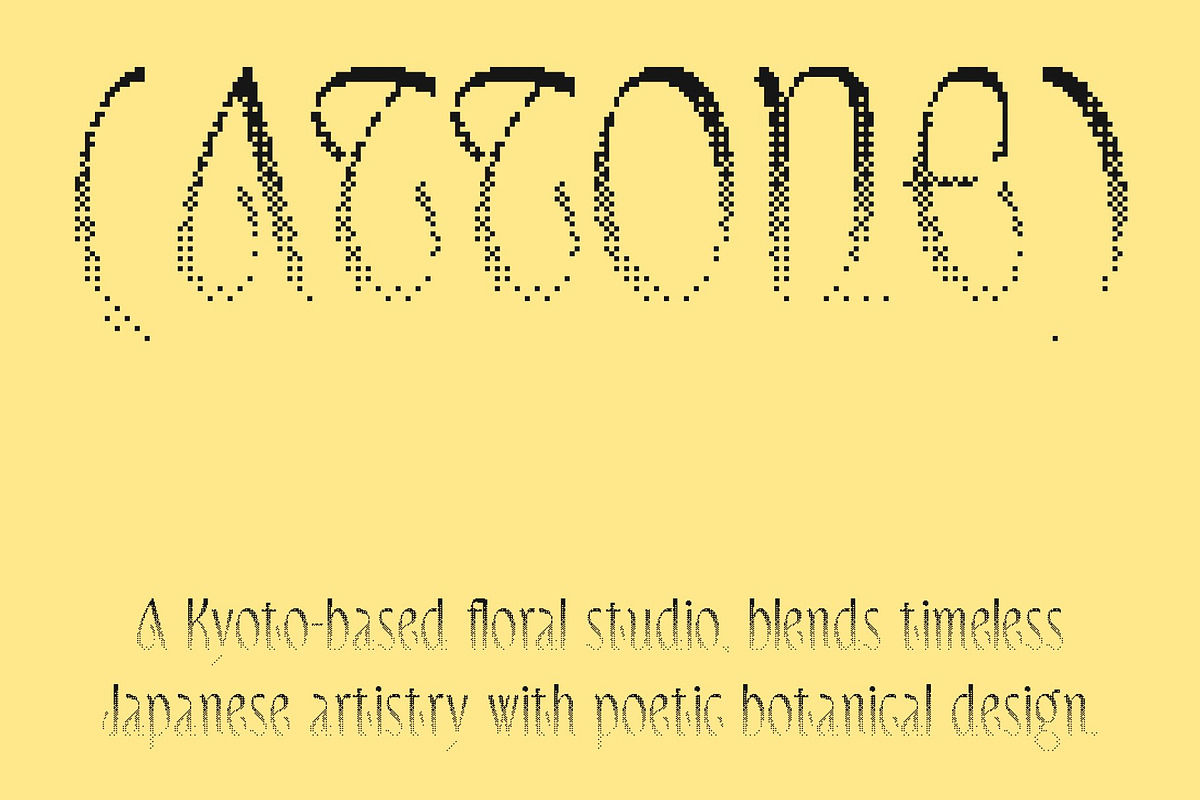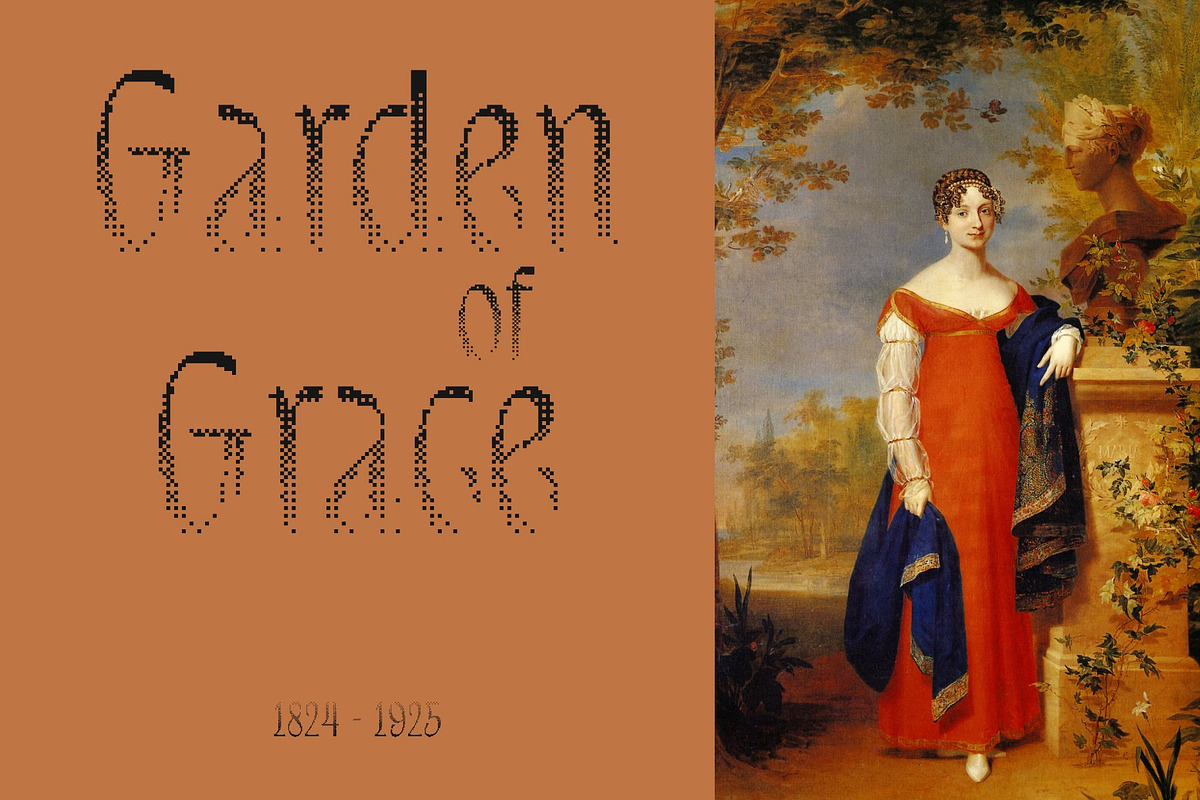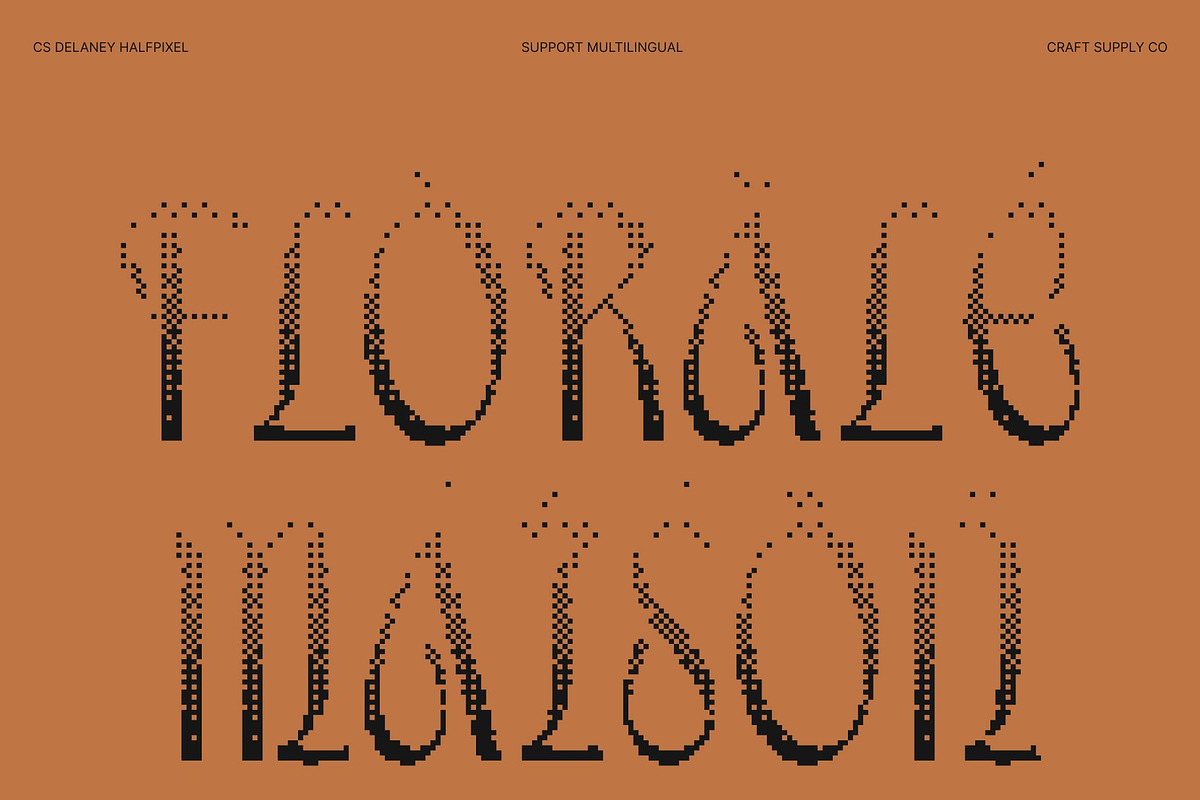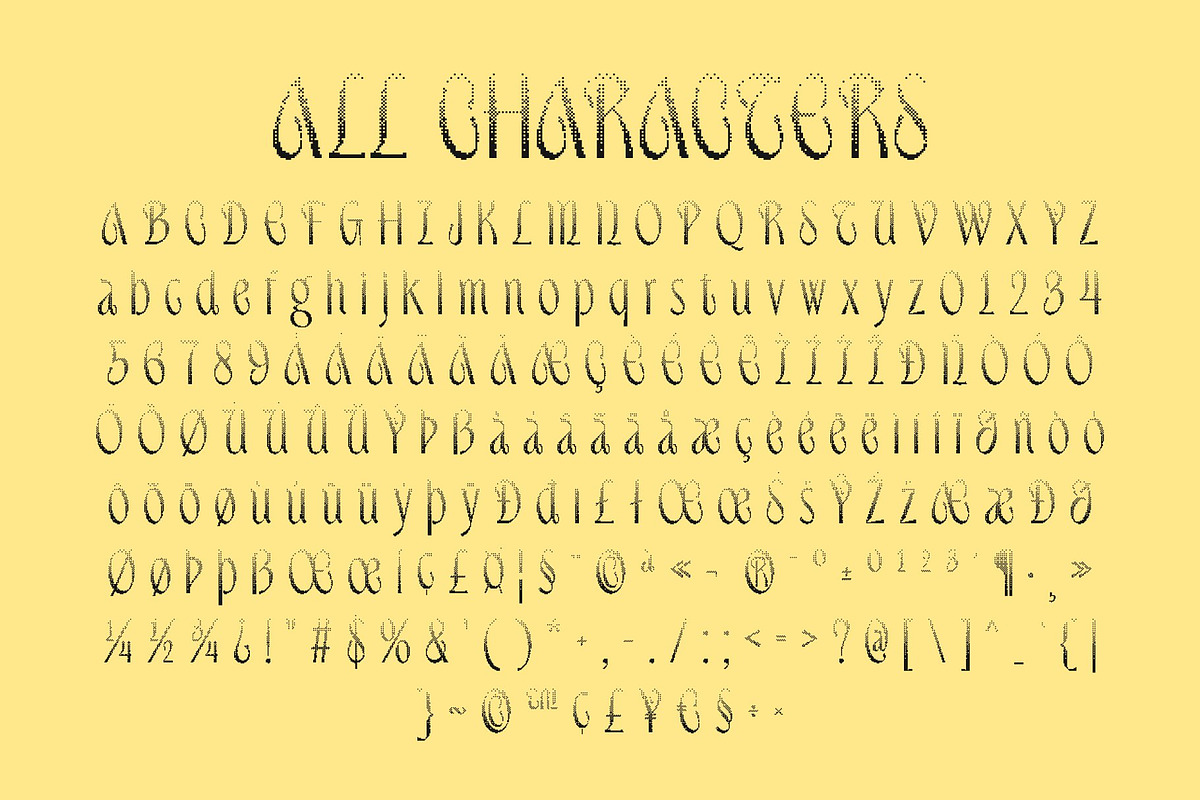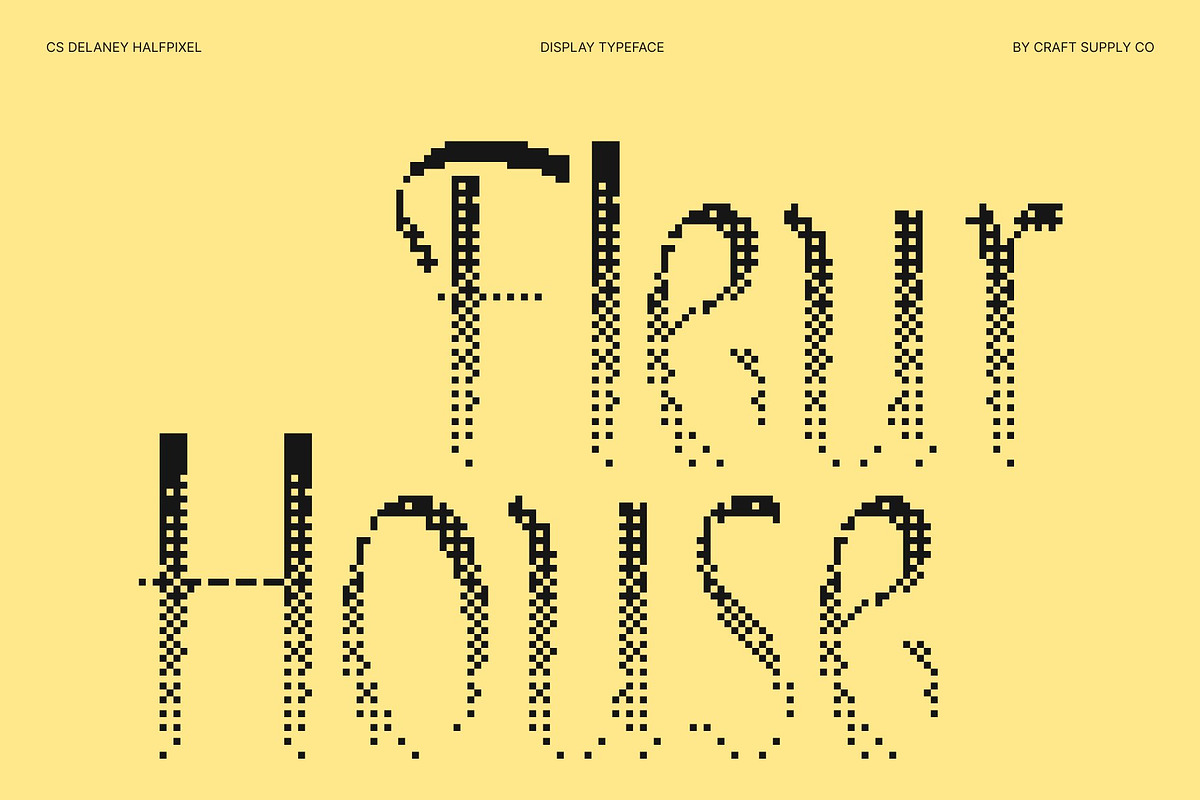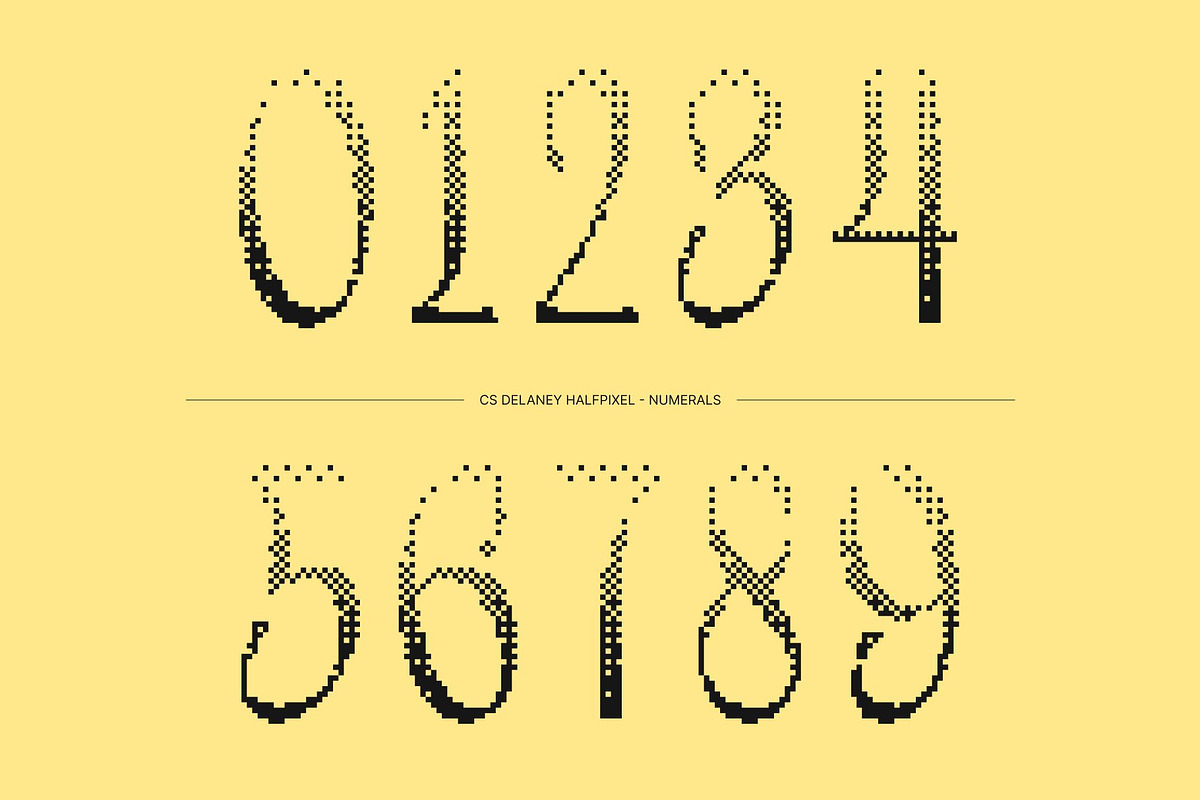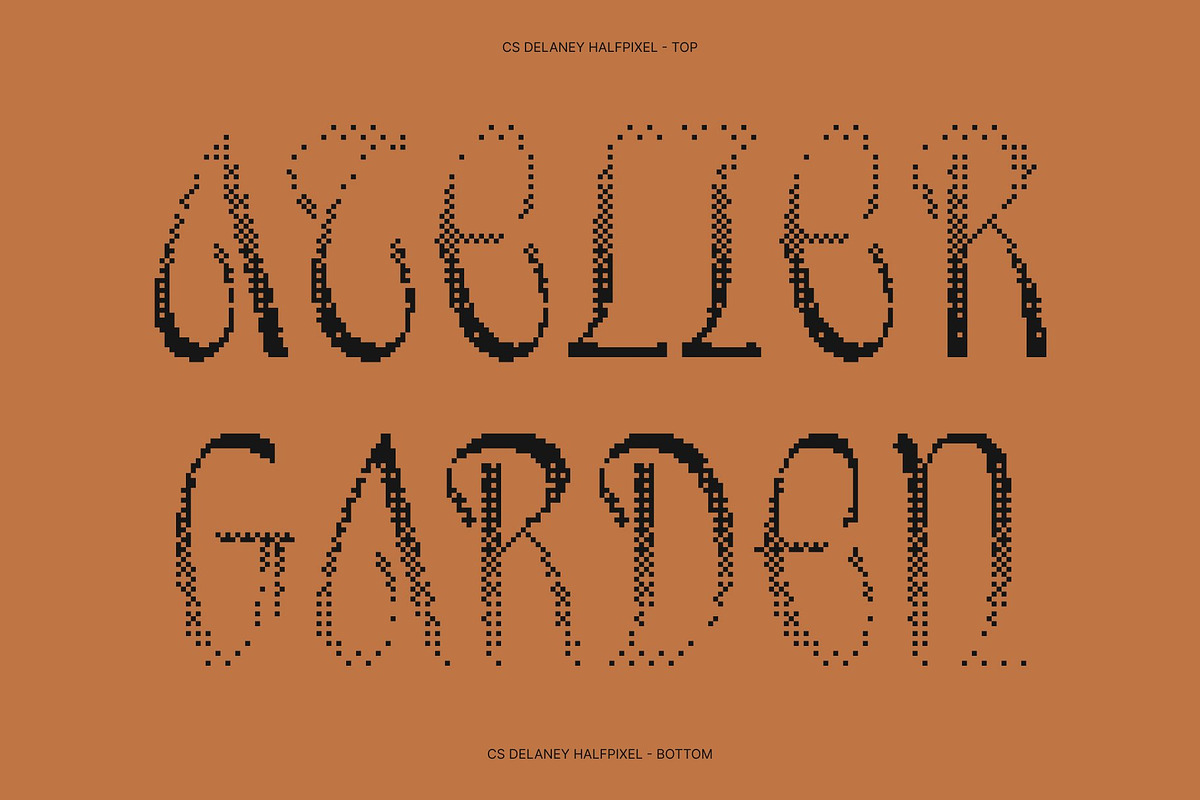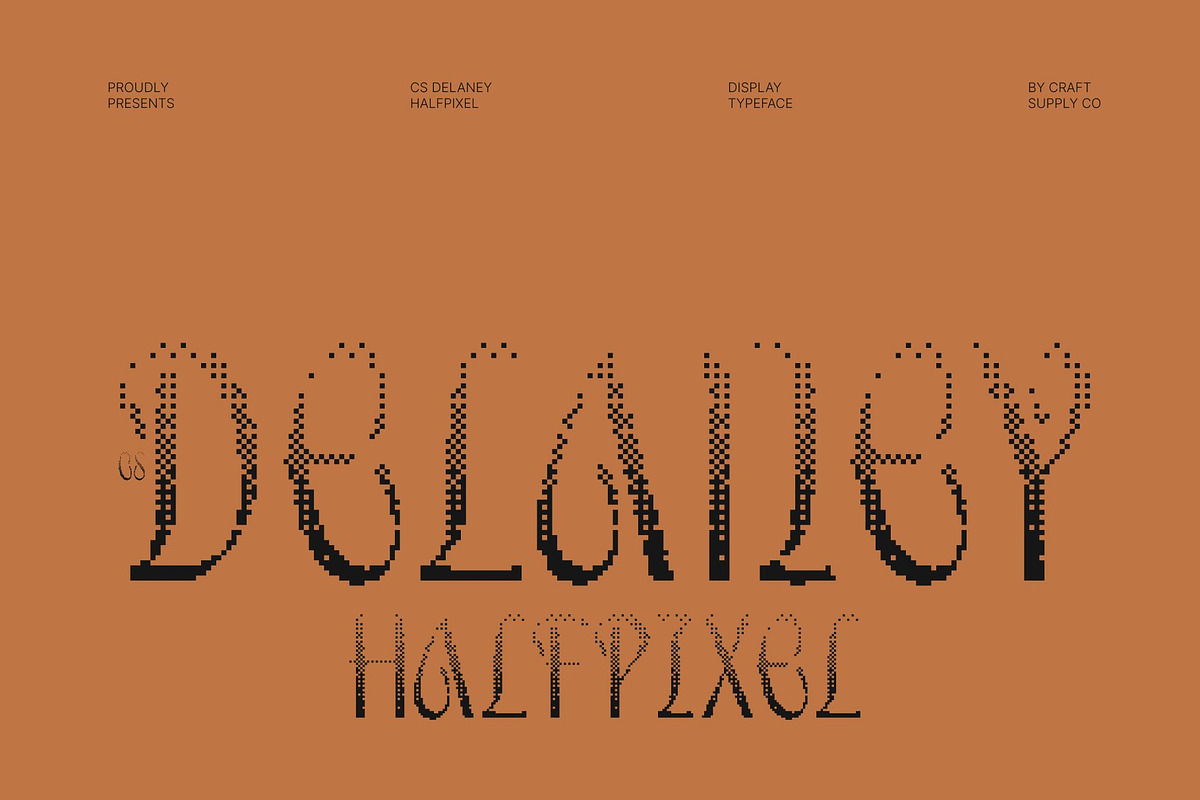
CS Delaney Halfpixel
CS Delaney Halfpixel – Modern Sans Serif Display Font: Where Sleek Elegance Meets Smooth Digital Precision
Clean Contemporary Forms with Sophisticated Appeal This is a modern sans serif display font designed to embody sleek sophistication and refined contemporary elegance. Its clean structure and balanced proportions create a polished visual identity that feels modern, stylish, and highly professional. Every character is crafted with clarity and precision, making the font perfect for premium creative projects and high-end visual compositions.
Halfpixel Effect with Smooth Retro-Digital Refinement This font delivers a smoother and softer appearance than traditional pixel fonts. Using subtle anti-aliasing-inspired detailing, the edges of the letters gain a gentle blur effect that preserves digital aesthetics while creating a more fluid and refined visual experience. This combination of modern typography and softened pixel influence adds a futuristic yet elegant personality.
Modern Luxury with Futuristic Clarity Blending contemporary sans serif forms with smooth halfpixel detailing, this font delivers a typographic identity that feels sophisticated, technological, and visually refined. Its sleek appearance and subtle digital texture create a perfect balance between luxury aesthetics and modern futuristic design.
Perfect for Premium Branding and High-End Visuals This font perfect for luxury branding, fashion campaigns, editorials, packaging, modern advertising, digital interfaces, presentations, and creative projects that demand a modern high-end appearance. Its refined halfpixel forms make it ideal for logos, headlines, social media graphics, signage, and visual identities that seek elegance with a subtle futuristic edge.